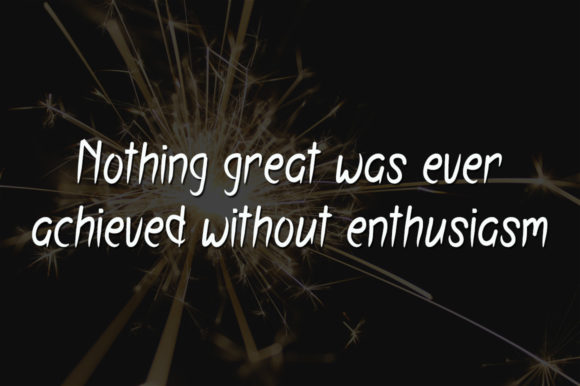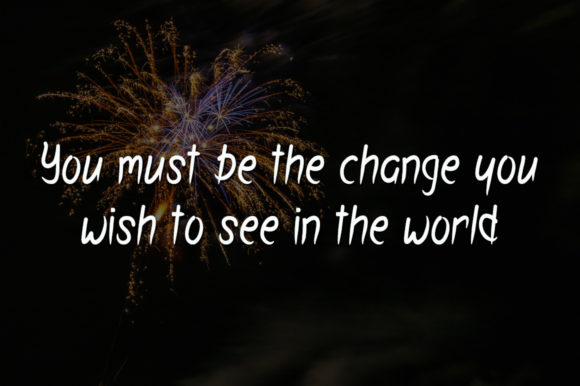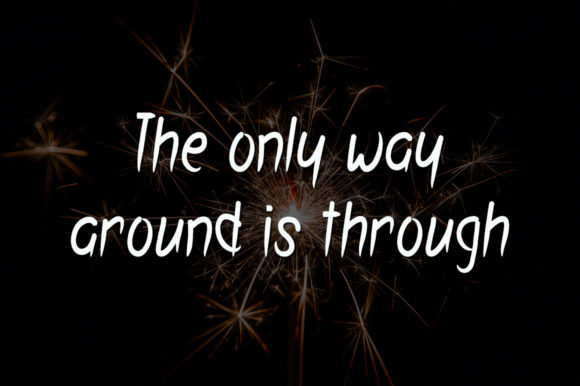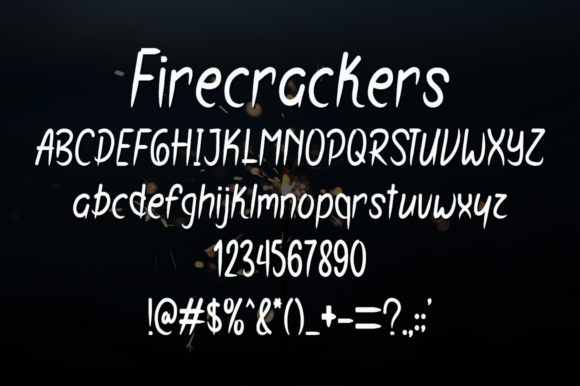
Introducing Firecrackers Font: The Sweet and Balanced Handwritten Font for Your Designs
Are you tired of using the same old fonts in your designs? Look no further! Firecrackers font is here to add a touch of sweetness and uniqueness to your creations. This handwritten font is perfect for designers and crafters who want to add a personal touch to their work. In this article, we’ll dive into the features and benefits of Firecrackers font, and explore how it can elevate your designs to the next level.
A Sweet and Well-Balanced Handwritten Font
Firecrackers font is a sweet and well-balanced handwritten font that is designed to make your designs stand out. Its natural and unique style makes it incredibly fitting to a large pool of designs, from wedding invitations and party decorations to branding and advertising materials. The font’s balanced and harmonious letterforms create a beautiful flow of text that is easy to read and visually appealing.
Natural and Unique Style
One of the standout features of Firecrackers font is its natural and unique style. The font’s handwritten letterforms are designed to mimic the imperfections and quirks of handwriting, giving your designs a personal and human touch. The font’s unique style also makes it perfect for designs that require a touch of whimsy and playfulness.
Perfect for a Wide Range of Designs
Firecrackers font is incredibly versatile and can be used in a wide range of designs, including:
- Wedding invitations and party decorations
- Branding and advertising materials
- Print-on-demand products, such as t-shirts and mugs
Benefits of Using Firecrackers Font
So why choose Firecrackers font for your designs? Here are just a few benefits of using this amazing font:
- Unique and eye-catching: Firecrackers font is sure to grab attention and make your designs stand out from the crowd.
- Easy to read: The font’s balanced and harmonious letterforms create a beautiful flow of text that is easy to read and visually appealing.
- Versatile: Firecrackers font can be used in a wide range of designs, from formal to informal.
- Personal touch: The font’s handwritten style adds a personal and human touch to your designs.
How to Use Firecrackers Font in Your Designs
Using Firecrackers font in your designs is easy! Here are a few tips to get you started:
- Pair with other fonts: Firecrackers font pairs well with other fonts, such as sans-serif fonts and script fonts.
- Experiment with colors: Try using Firecrackers font in different colors to add a pop of color to your designs.
- Play with textures: Add texture to your designs by using Firecrackers font with different textures and patterns.
In conclusion, Firecrackers font is a sweet and well-balanced handwritten font that is perfect for designers and crafters who want to add a personal touch to their work. Its natural and unique style makes it incredibly fitting to a large pool of designs, and its versatility and ease of use make it a great addition to any design toolkit. So why not give Firecrackers font a try and see how it can elevate your designs to the next level?
Whether you’re a seasoned designer or just starting out, Firecrackers font is a great choice for anyone looking to add a touch of sweetness and uniqueness to their designs. So go ahead, get creative, and see what amazing designs you can create with Firecrackers font!